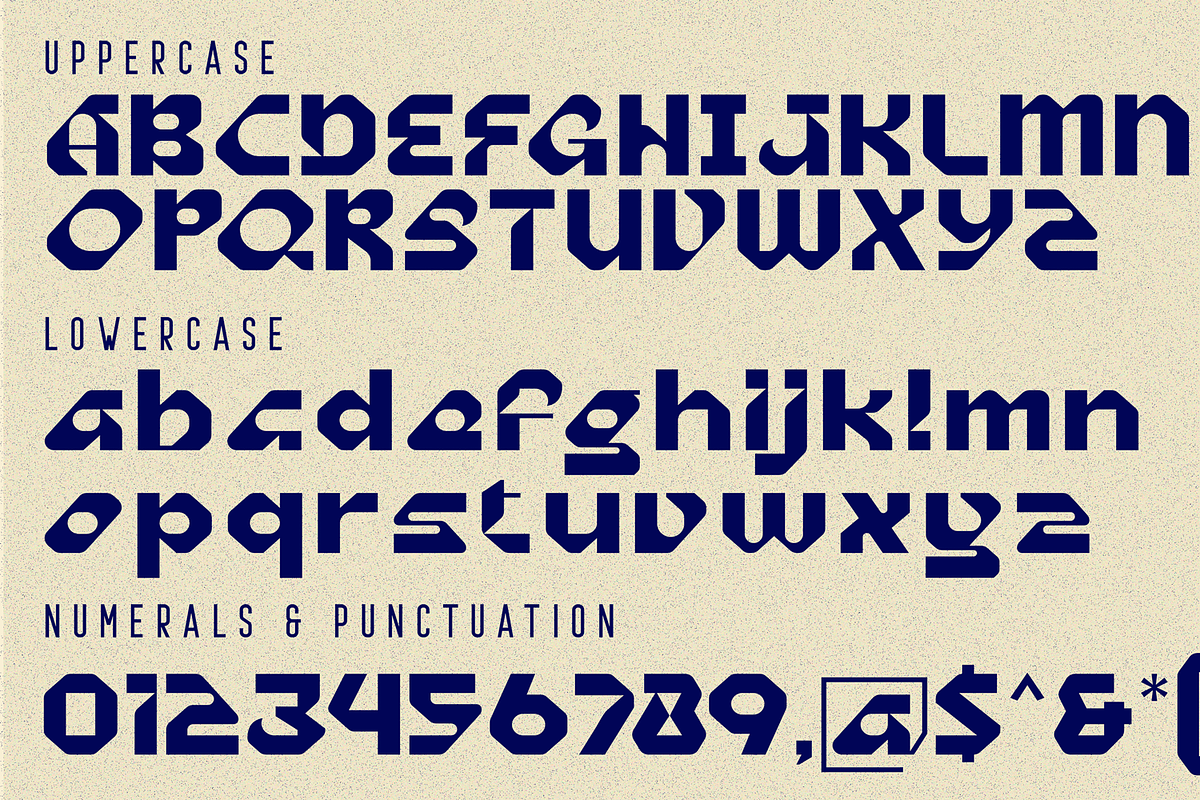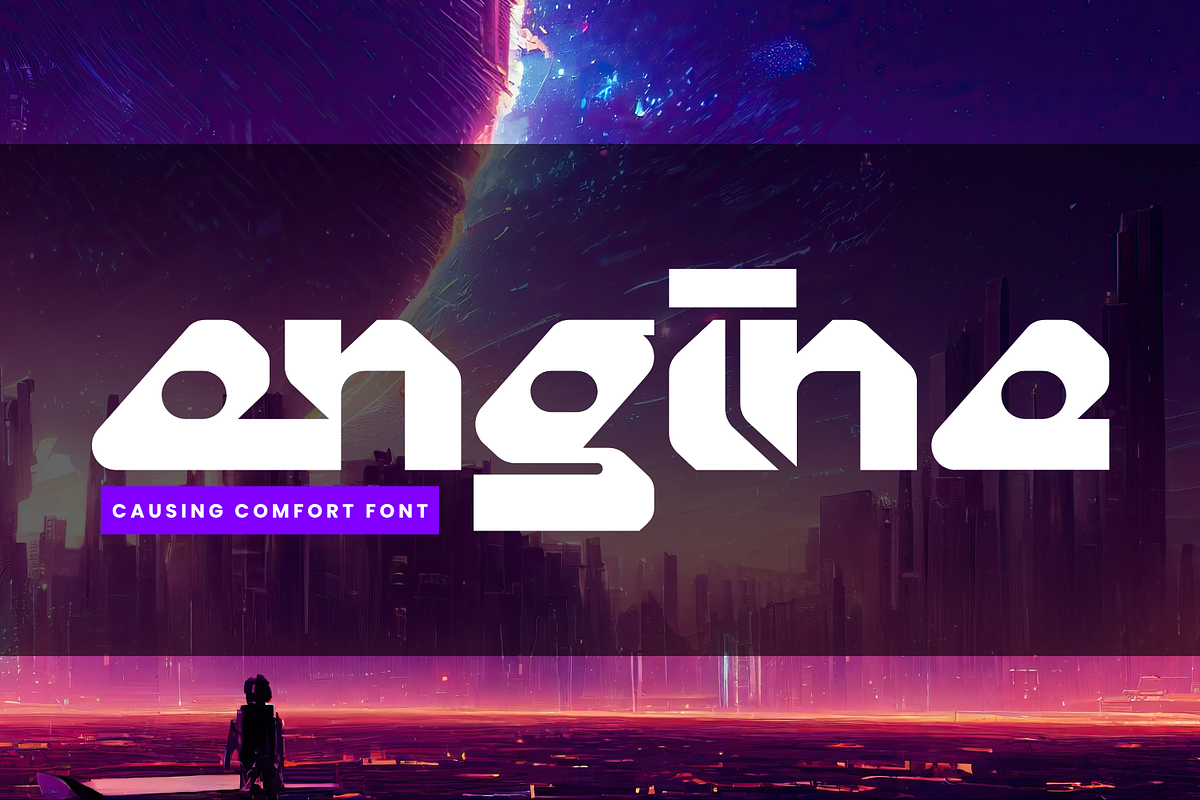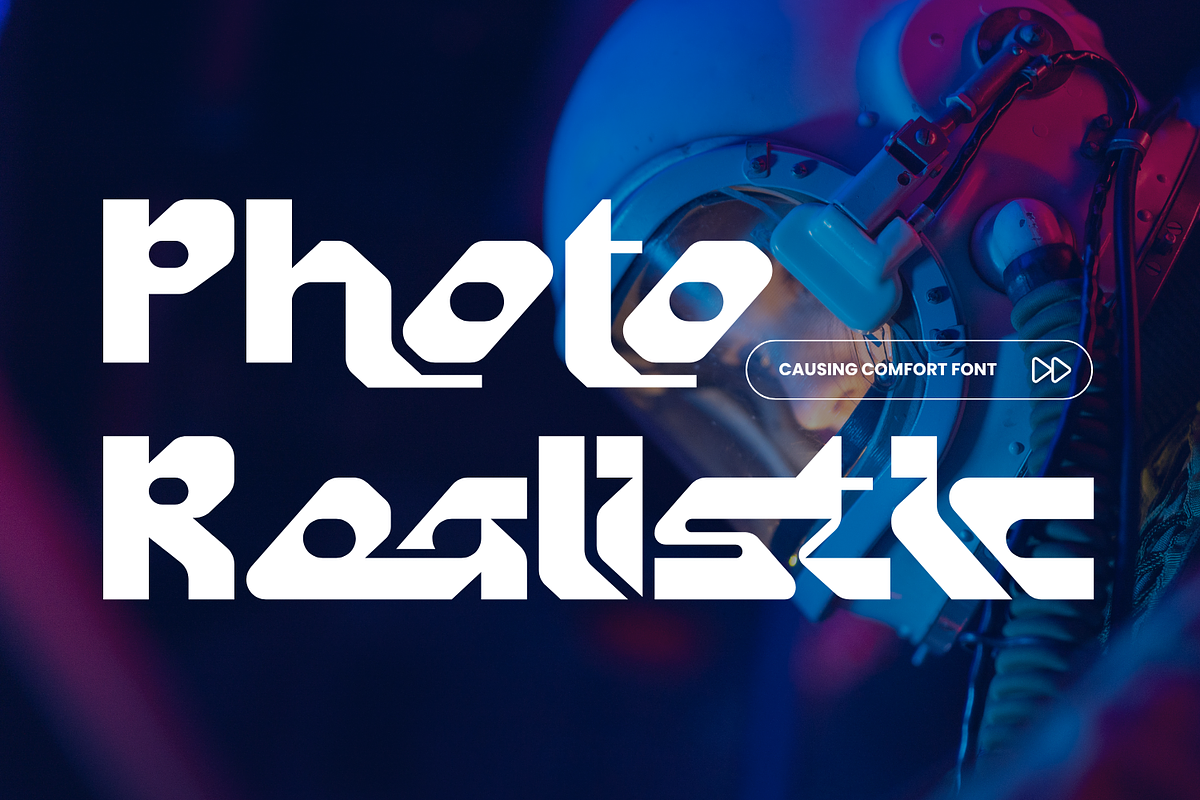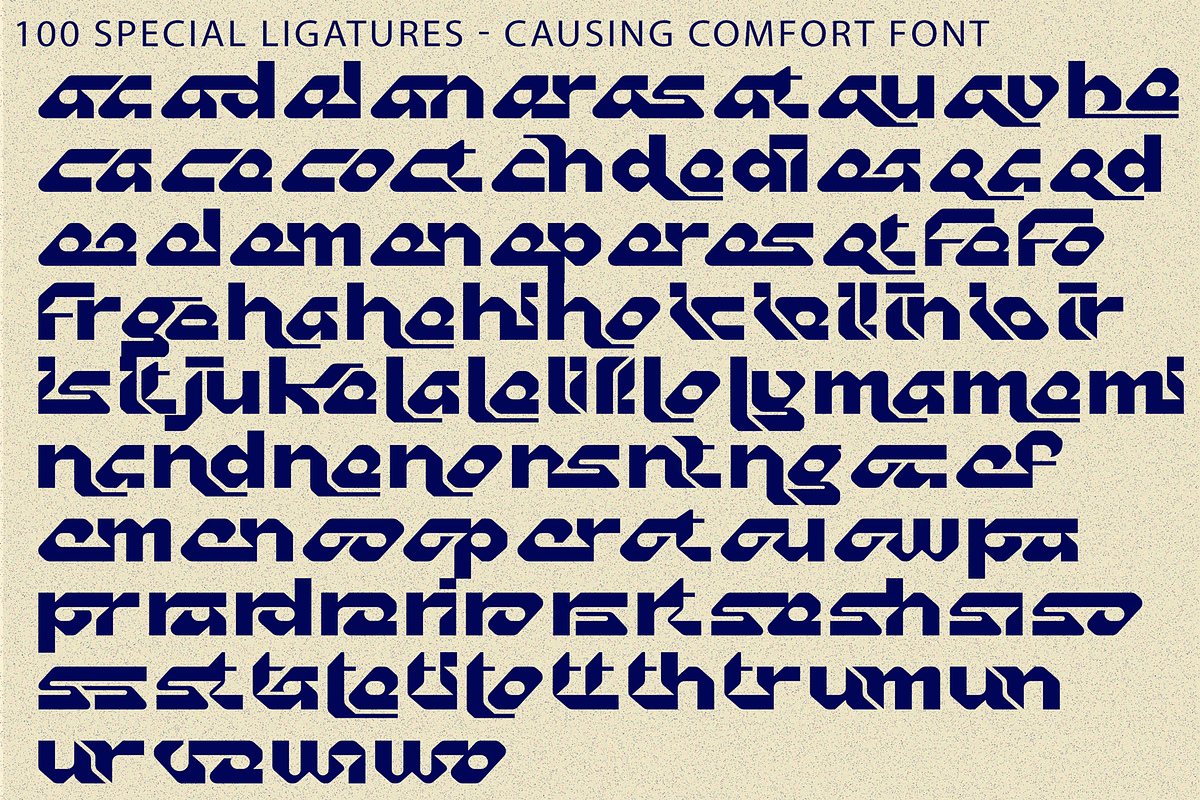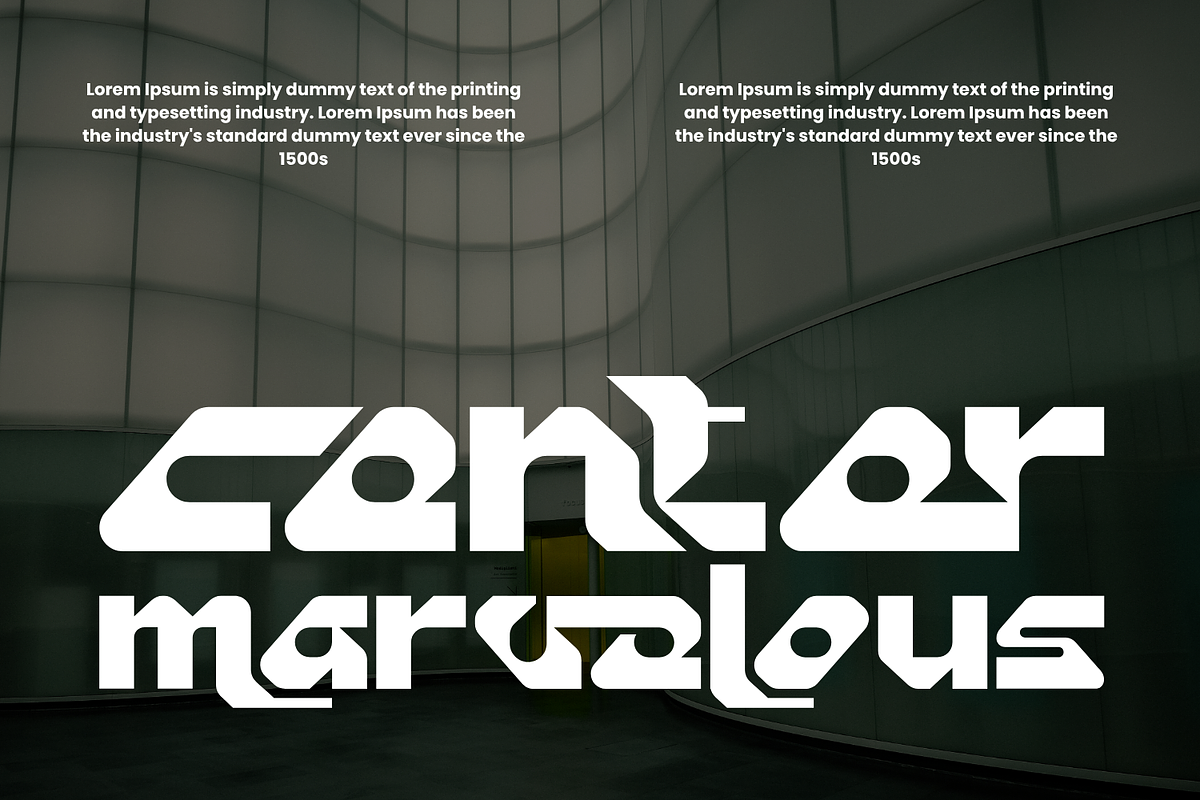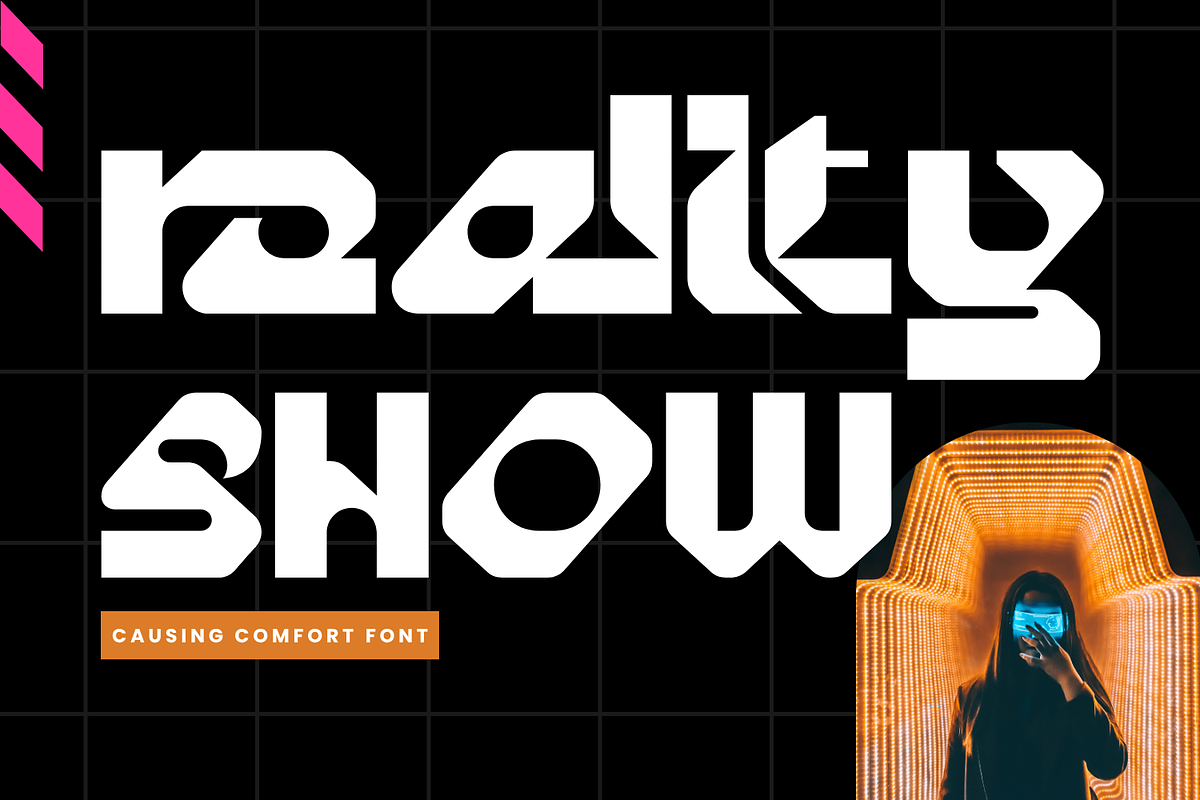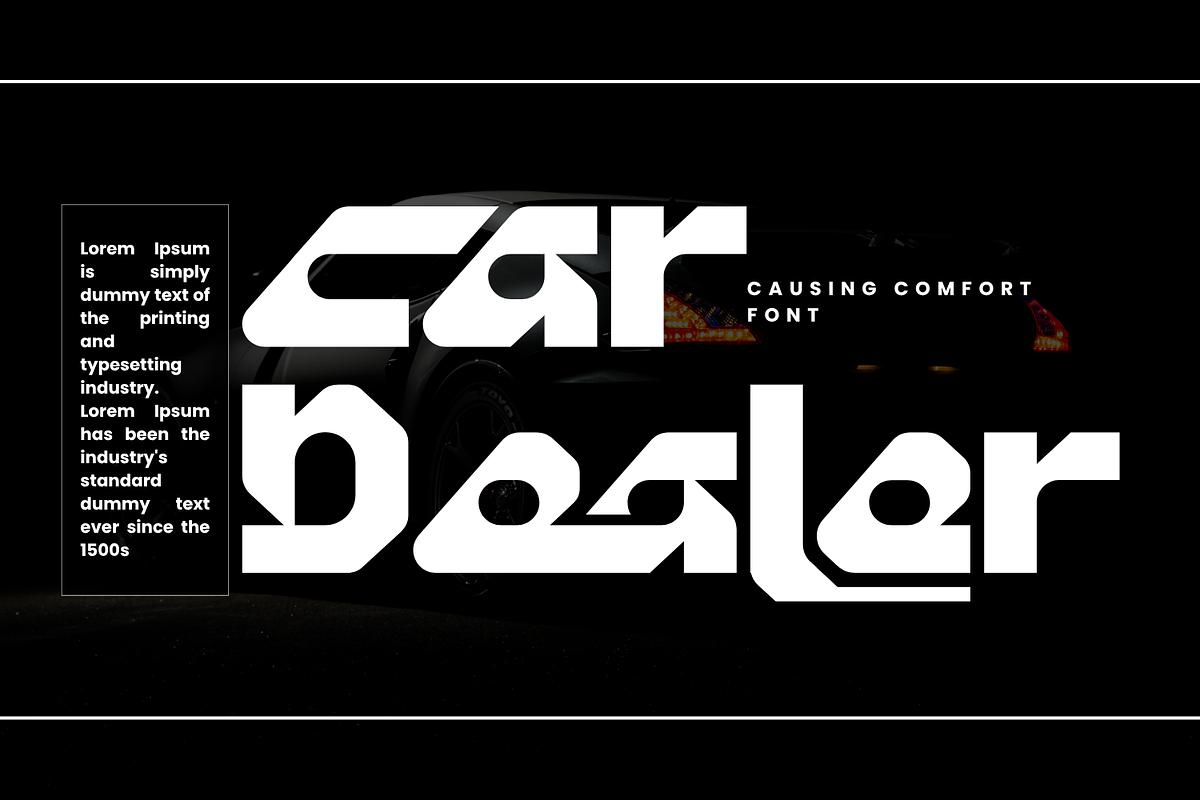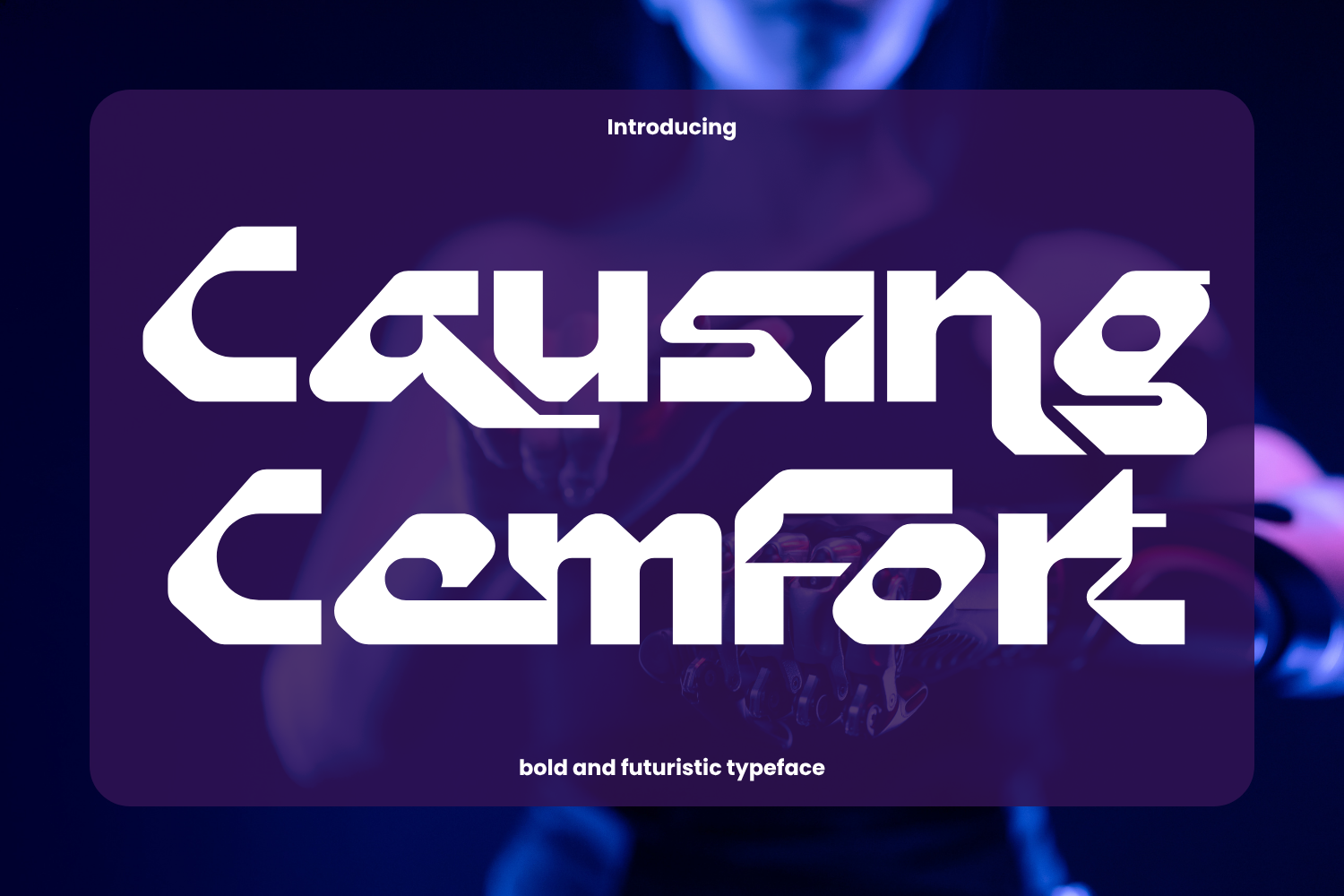
Causing Comfort - Sci-fi Font
Causing Comfort - Sci-fi Font is a futuristic rounded sans-serif display font designed with clean geometry, smooth curves, and modular letterforms. Its bold structure and refined cut details create a modern high-tech look while keeping a soft and approachable visual rhythm. Perfect for technology branding, gaming titles, sci-fi posters, digital products, startup logos, UI design, and futuristic visual identities, Causing Comfort delivers clarity, innovation, and strong visual impact.
🔤Features:
Uppercase & Lowercase Letters
Around 100 Special Ligatures & Alternates
Accented Characters for multilingual support
🔤About 100 ligatures combined with Stylistic Alternates Font:
ac ad al an ar as at au av be ca ce ch co ct de di ea ec ed ee el em en ep er es et fe fo fr ge ha he hi ho ie ic il in io ir is it ju ke la le li ll lo ly ma me mi nc nd ne ng no nt ns oc of om on oo op or ot ou ow pa pr ra rd re ri ro rs rt se sh si so ss st ta te th ti to tr tt um un ur ve wi wo